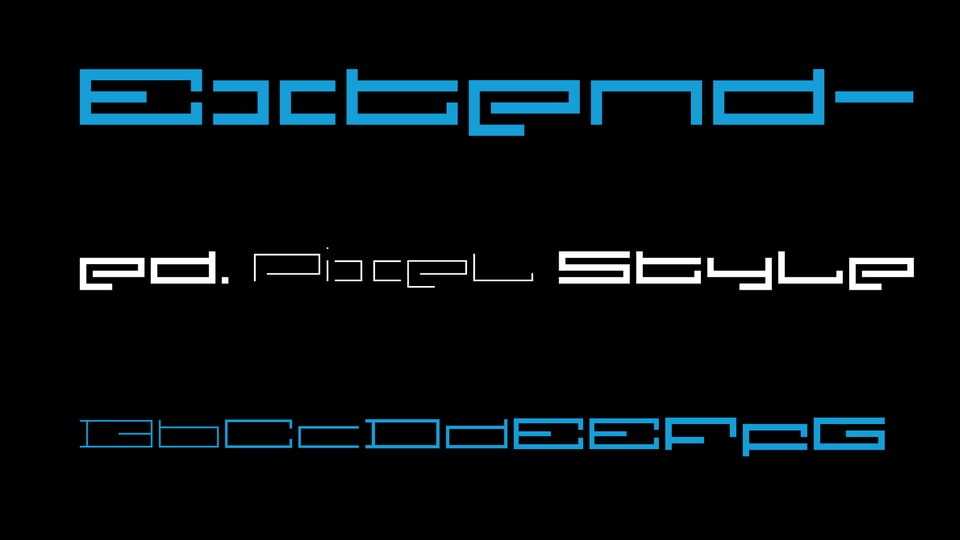
Download F Pixel font, a geometric pixel-style typeface built on pure structure and modular precision. This minimalist and futuristic font works great for UI design, posters.